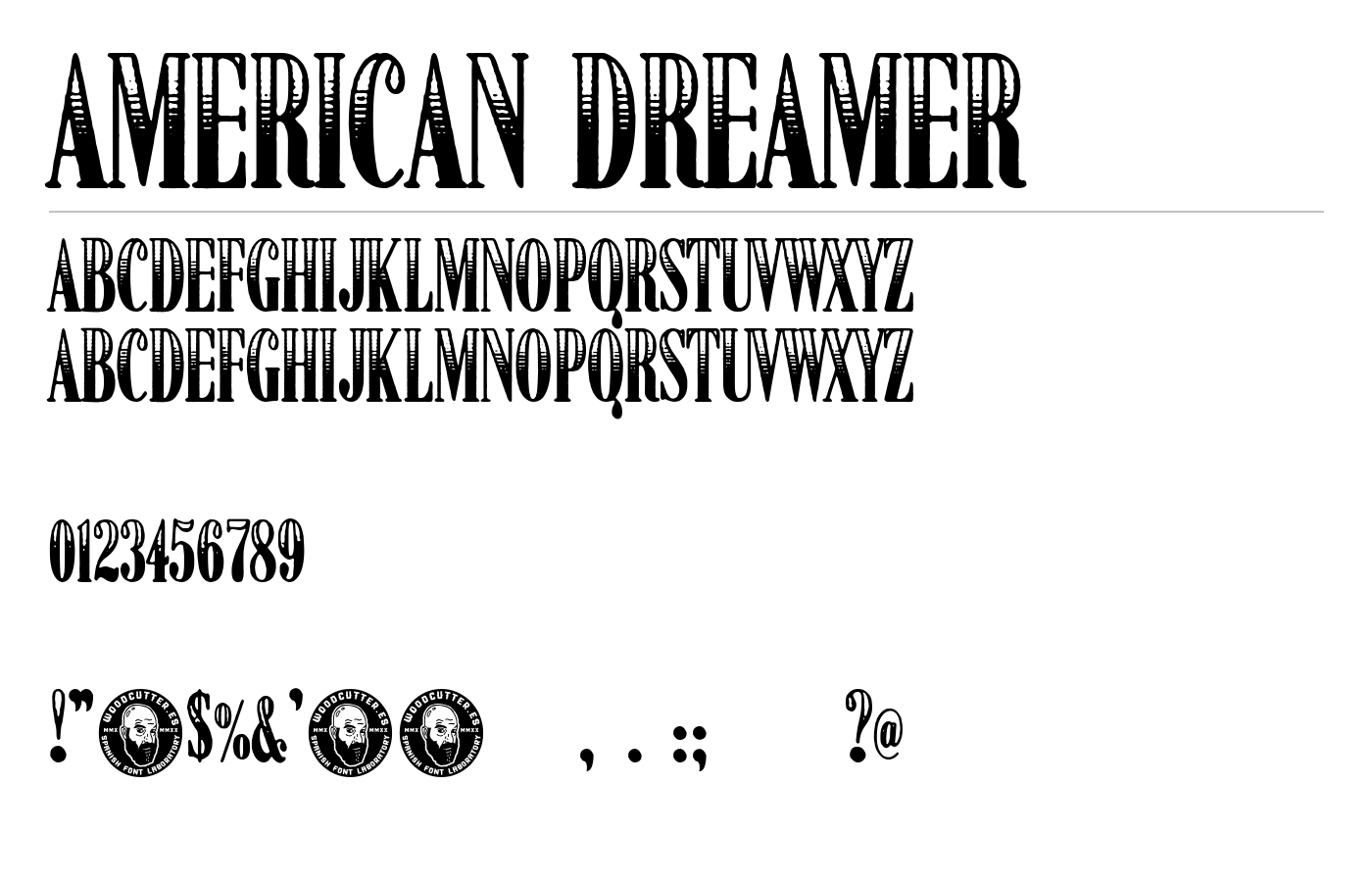
American Dreamer is a bold, condensed serif font with a vintage western vibe, featuring a high contrast between thick and thin strokes and delicately bracketed serifs. Its tall uppercase letters carry a hand-crafted, slightly rustic charm, making it perfect for designs needing a strong, nostalgic personality. Ideal for posters, logos, or editorial headlines, this font adds a touch of classic Americana flair with an eye-catching, timeless style.
American Dreamer Font